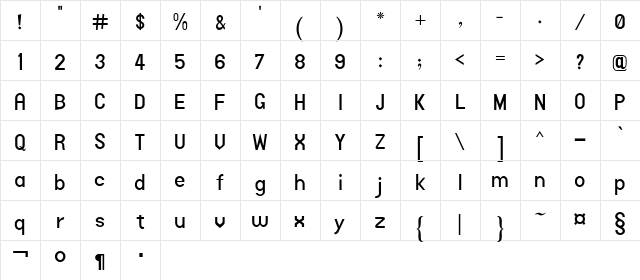
Fahad Elham Regular
Designer: Mr. Jamil-ur-Rehman
Design Context for Fahad Elham
Fahad Elham is a composed and adaptable typeface that performs quietly and consistently across a wide range of design contexts.